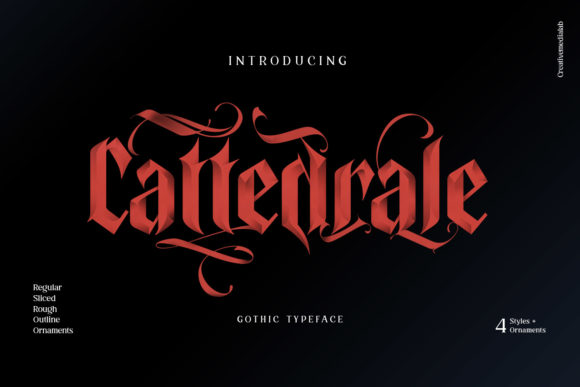
The Elegance of Cattedrale Font
As a designer, have you ever stared at a blank page, waiting for inspiration to strike? The blank canvas can be daunting, but sometimes all it takes is the right tool to unlock your creativity. For me, it’s the thrill of discovering a new font that sets my imagination ablaze. And that’s exactly what happens when I stumble upon Cattedrale Font – a majestic gothic blackletter that exudes sophistication and elegance.
Cattedrale Font is a masterpiece designed to add a touch of grandeur to any design. Its intricate details and ornate flourishes make it the perfect choice for creating eye-catching titles, headings, and even entire layouts. Whether you’re working on a luxury brand, a historical project, or a fantasy-themed design, Cattedrale Font is sure to elevate your work to new heights.
Cattedrale Font Key Features
- Font Family: A beautiful, elegant serif font designed for formal and decorative purposes.
- Unique Characteristics: Features intricate details, ornate flourishes, and classic typography elements, making it perfect for formal invitations, certificates, and other special occasions.
- Languages Supported: Supports Latin-based languages, including English, Spanish, French, and many others.
- Font Pairing Suggestions: Pairs well with modern sans-serif fonts for a balanced and elegant look, or with other serif fonts for a classic and sophisticated feel.
Cattedrale Font Review
Cattedrale Font is a beautiful, elegant serif font designed by Alessio Laiso. It’s perfect for creating a sophisticated and luxurious atmosphere in any design project. ✨
- Refined and classic feel that exudes elegance and sophistication
- Wide range of weights and styles to choose from, making it highly versatile
- Perfect for use in titles, headings, and body text where a high-end feel is desired
- Excellent legibility, making it easy to read in both print and digital formats
However, like any font, Cattedrale Font has its limitations. ✨
- May not be the best choice for modern or minimalist designs, as it can come across as overly ornate
- Some users may find the font too formal or stuffy, which can be a drawback in certain contexts
- The font’s elaborate design may make it difficult to pair with other fonts or design elements
In conclusion, Cattedrale Font is a beautiful and sophisticated serif font that is perfect for creating a luxurious atmosphere in any design project. While it may have some limitations, it is a great choice for designers who want to add a touch of elegance and refinement to their work.
Cattedrale Font is suitable for various design projects, including:
– Luxury branding and packaging
– High-end magazine and book design
– Fine art and typography-based projects
Tips for Getting the Most Out of Cattedrale Font
To get the most out of Cattedrale Font, try:
– Pairing it with elegant graphics and textures
– Using it for titles and headings to add a touch of sophistication
– Experimenting with different font sizes and colors to create visual interest
– Combining it with other fonts to create a unique and harmonious typography
Alternatives to Cattedrale Font
Bodoni is a classic serif font that is ideal for use in formal or traditional settings. It has a similar elegance to Cattedrale Font, but with a more refined and formal look. Use Bodoni when you want to convey a sense of sophistication and luxury.
Comparison: While Cattedrale Font has a more dramatic and ornate feel, Bodoni is more understated and refined. Bodoni is also more versatile and can be used in a wider range of applications.
Playfair Display is a high-end serif font that is perfect for use in titles, headlines, or other display text. It has a similar level of elegance and sophistication to Cattedrale Font, but with a more modern and sleek look. Use Playfair Display when you want to make a statement or draw attention to a particular piece of text.